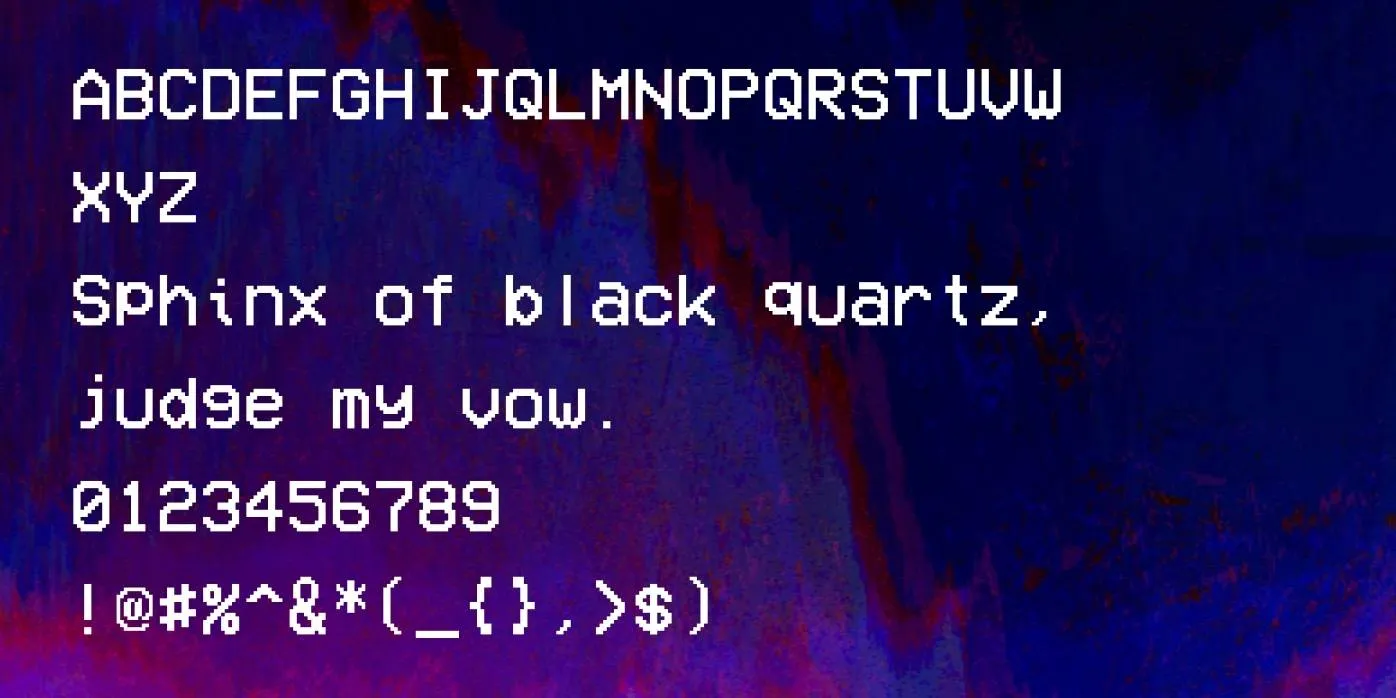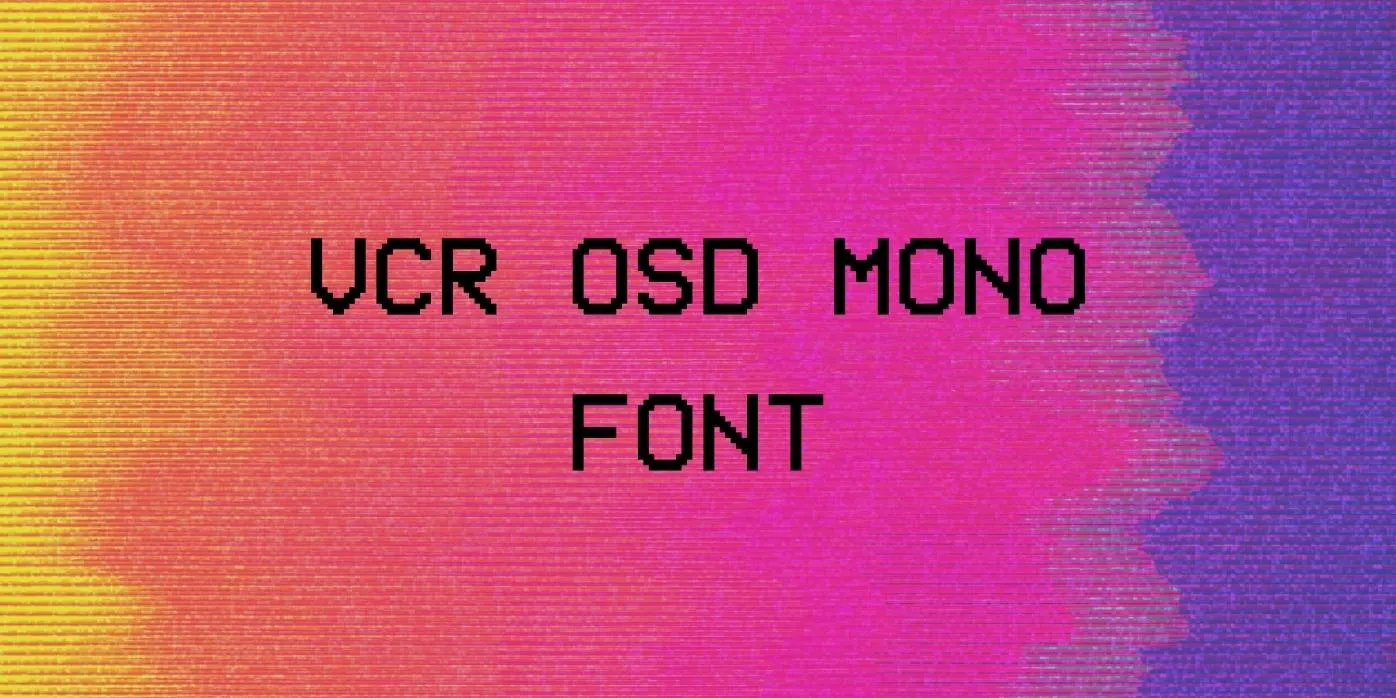
Vcr Osd Mono Font
Vcr Osd Mono is a beautiful pixelated font with a great look and unusual textual appearance. The font family belongs to a display typeface family and it has been designed by Riciery Leal. It has OTF and TTF features and one of the great things is that it is free for commercial and business use. This font style has a crude visual style that is not fitting to devise personal and official documentation and assignments.
It is an old pixel texture variety but it is still worthy for any kind of display or screen design, designers can use it in many printing and digital works bother-free. This ultimate typeface has Opentype layout and Truetype outlines that include Uppercase and Lowercase, Letters, Numbers and Numerals, and unique symbols also. It has the best pairing function with Modeseven Regular Font.